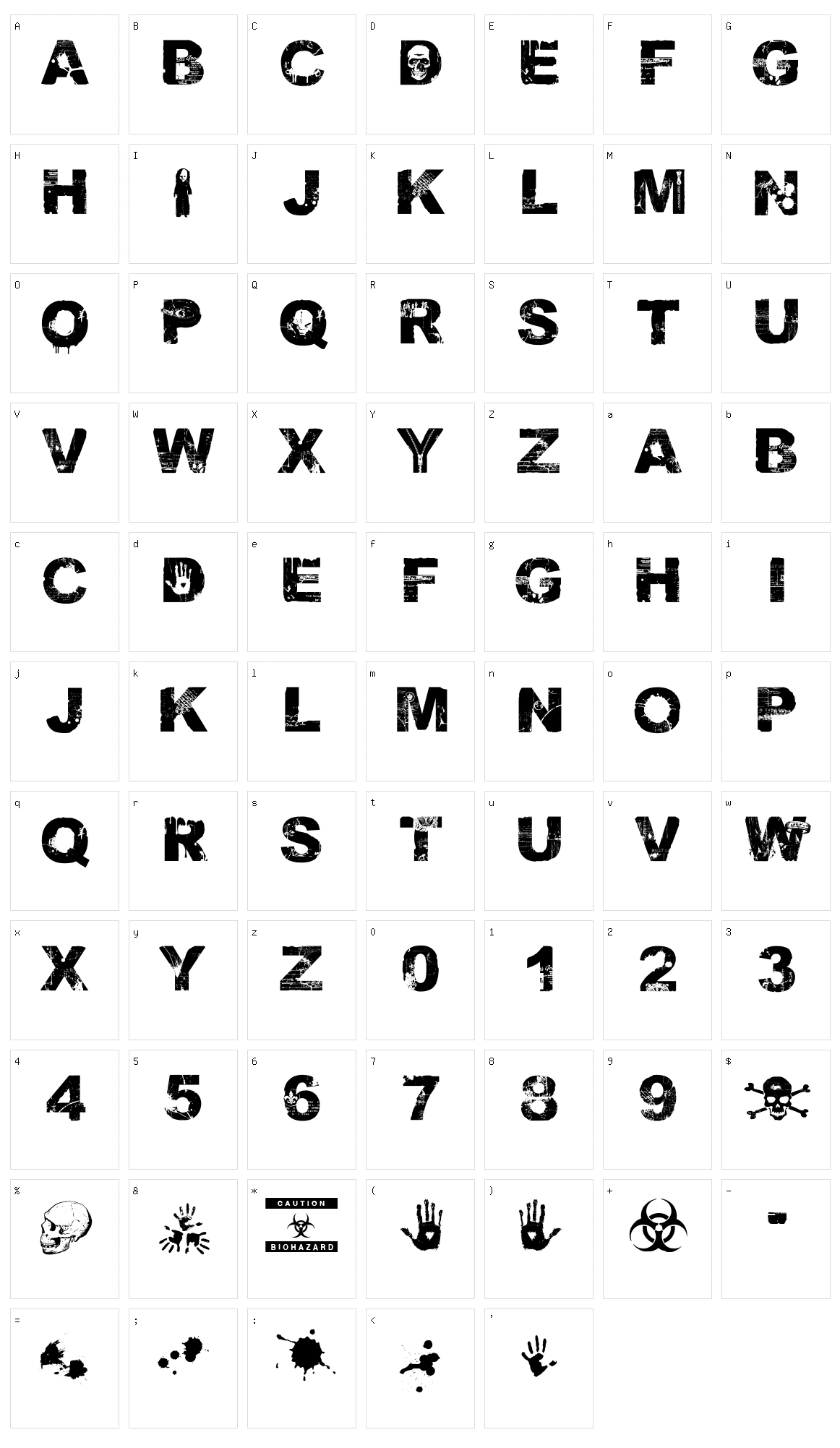
The free font Damned Deluxe is carefully designed by Cloutierfontes, showcasing a thoughtful balance of creativity and usability and falls under the Destroy font style. When you download the ZIP file, it contains only 456.97 KB of font files, making it lightweight and quick to download. Please review the license details below to understand permitted usage and distribution rights. If license information is not available, we recommend using this font for personal projects only or contacting the author directly for commercial usage permissions.